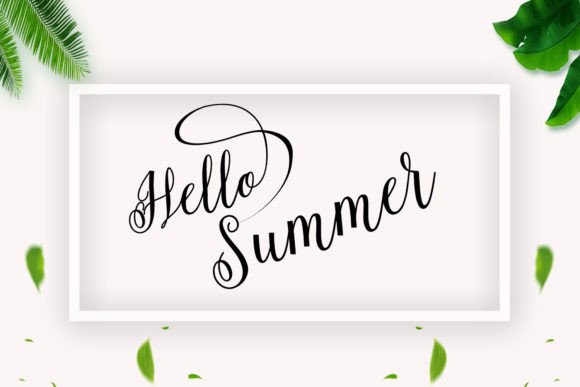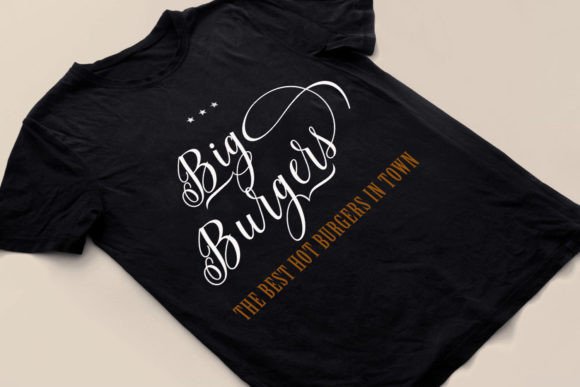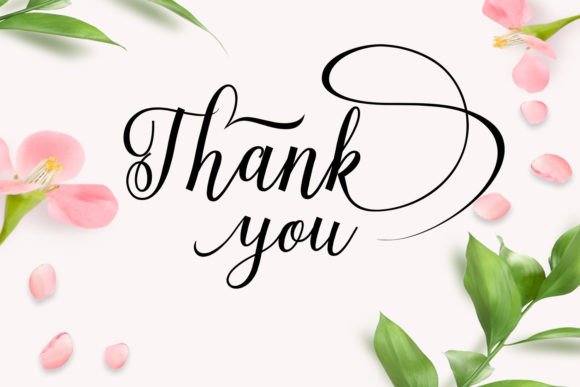
The Herochin Font: A Modern Script Font for Creative Projects
I’ll never forget the moment I stumbled upon the perfect font for a wedding invitation project. I had been searching for hours, trying out different fonts, but none seemed to fit the elegant yet playful vibe my client was looking for. That was until I discovered Herochin, a modern script font that instantly captured the essence of the occasion. In this article, I’ll share my experience with Herochin, its features, and how to make the most of this beautiful font in your creative projects.
First Impressions: What I Love About Herochin
Herochin is a stunning modern script font with an irregular baseline that gives it a unique, trendy, and feminine touch. Here are some things I love about Herochin:
• Trendy and feminine style: Herochin is perfect for designs that require a touch of elegance and playfulness.
• Versatile: This font is suitable for a wide range of projects, including wedding invitations, thank you cards, quotes, greeting cards, logos, business cards, and more.
• 💫 Ink and watercolor friendly: Herochin looks lovely when used in ink or watercolor designs, adding a touch of sophistication and whimsy.
Honest Review: A Few Quirks to Consider
While Herochin is an amazing font, there are a few quirks to keep in mind:
• 🤔 Limited use in formal designs: Herochin’s playful and irregular baseline might not make it the best choice for very formal designs or projects that require a high level of professionalism.
• ⚠️ Glyph limitations: As with any font, Herochin might not have an extensive range of glyphs or special characters, which could limit its use in certain projects.
The Story Behind Herochin
Herochin was designed with the intention of creating a modern script font that captures the essence of elegance and playfulness. Inspired by the beauty of handwritten scripts, Herochin’s creator aimed to produce a font that would be versatile and suitable for a wide range of creative projects.
Font Name Herochin Font
Author Donyadesign
Q: What type of projects is Herochin best suited for?
A: Herochin is perfect for wedding invitations, thank you cards, quotes, greeting cards, logos, business cards, and more.
Q: Is Herochin a handwritten font?
A: Herochin is a modern script font with a handwritten feel, but it’s not a traditional handwritten font.
Q: Can I use Herochin in ink or watercolor designs?
A: Absolutely! Herochin looks lovely when used in ink or watercolor designs, adding a touch of sophistication and whimsy.